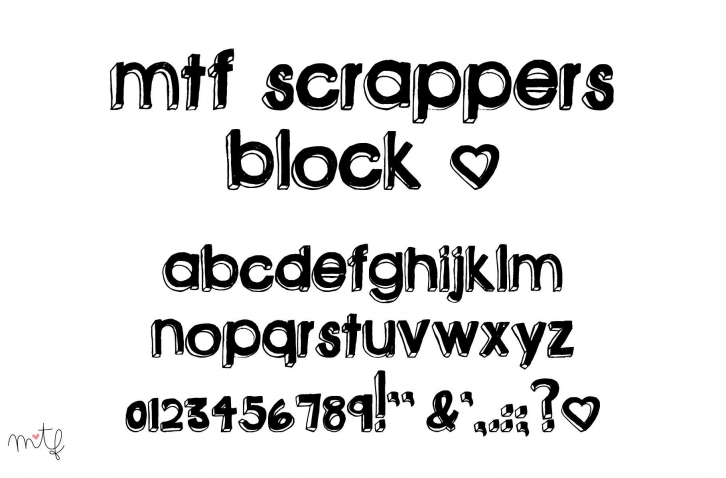
Scrappers Block is a dynamic display font that perfectly complements bold and unique creations! Its charming letters have a cool 3D-like appearance, so you can use them to make any text stand out from the background.